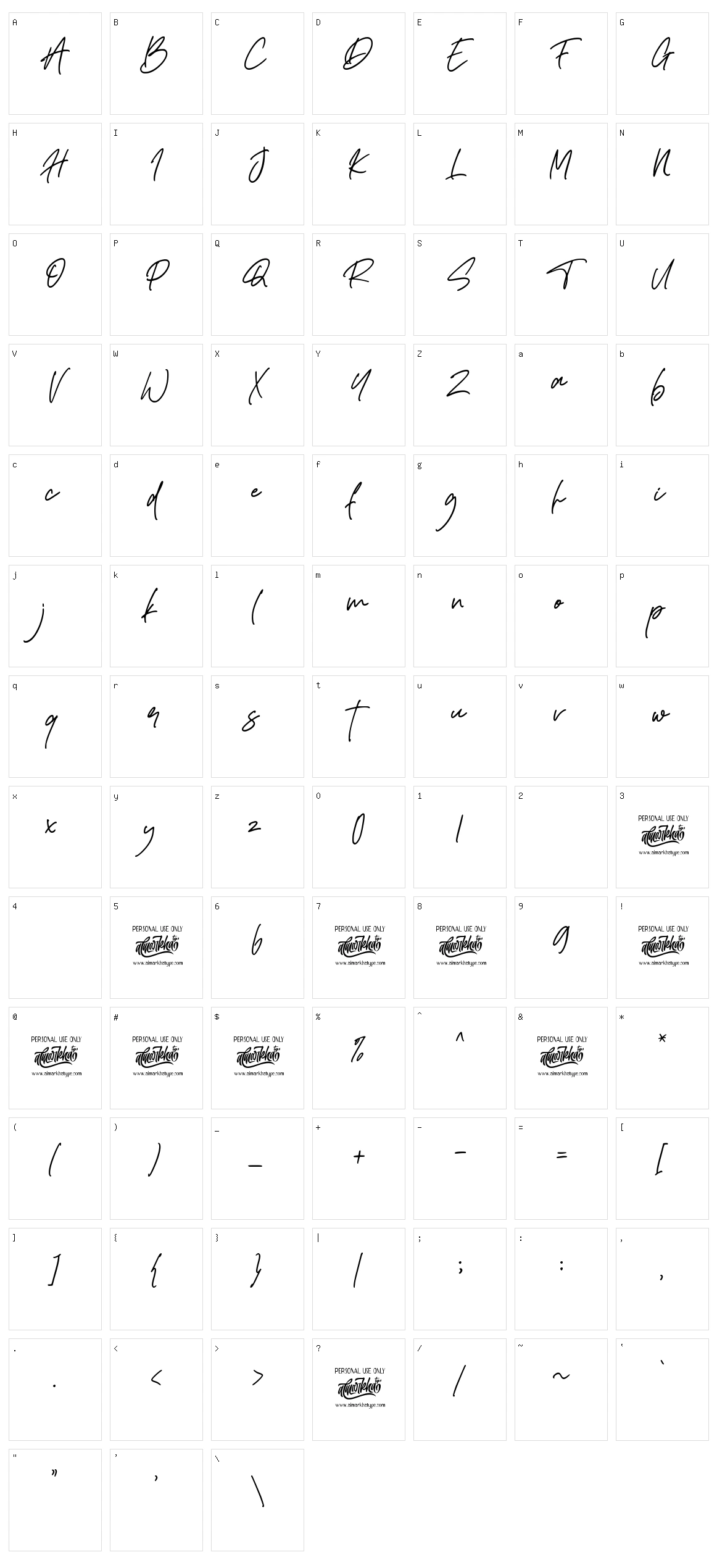
The free font Bettanesia is carefully designed by Almarkhatype, showcasing a thoughtful balance of creativity and usability and falls under the Script font style. When you download the ZIP file, it contains only 440.04 KB of font files, making it lightweight and quick to download. Please review the license details below to understand permitted usage and distribution rights. If license information is not available, we recommend using this font for personal projects only or contacting the author directly for commercial usage permissions.